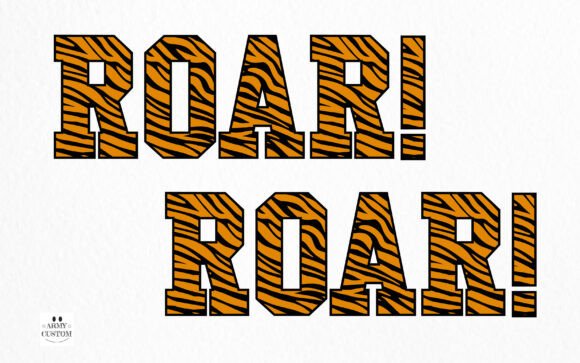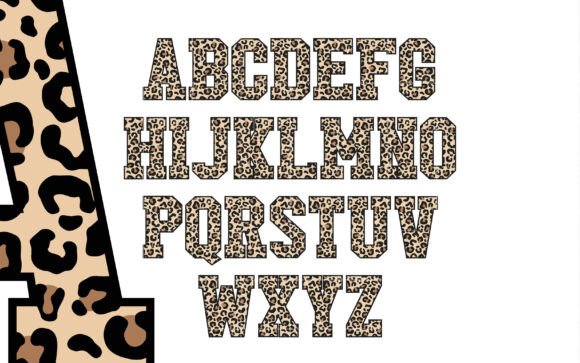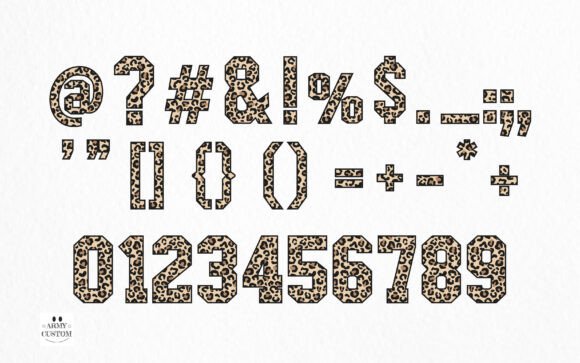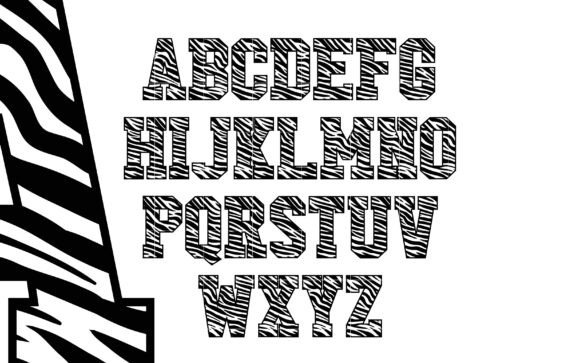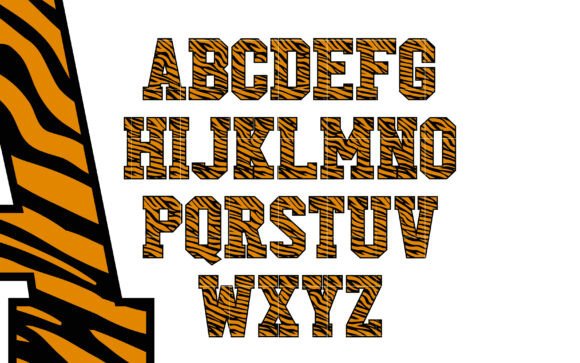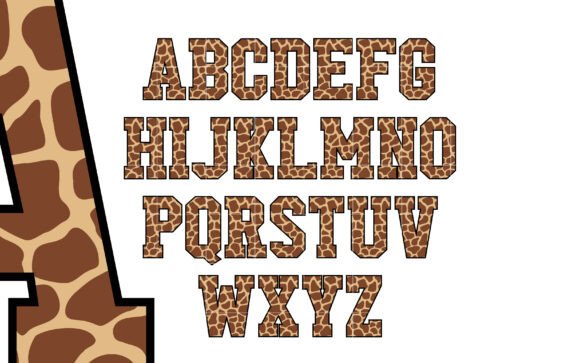
Introducing the Giraffearmy Font: Unleash Your Creativity with Safari Army Bundle
Are you a designer or crafter looking for a unique and playful font to add a touch of wild adventure to your projects? Look no further than the Giraffearmy Font, part of the exciting Safari Army Bundle. This color decorative font family is specifically designed for bold, kid-friendly jungle themes, making it perfect for a wide range of creative applications.
What Makes Giraffearmy Font So Special?
The Giraffearmy Font, along with its companion fonts Zebra, Leopard, and Tiger, offers a fresh and exciting way to add visual interest to your designs. The font features chunky all-caps with sturdy slabs, a crisp white inline, and a solid black outer stroke, creating a sticker-like presence that remains sharp even at large poster sizes.
Exploring the Safari Army Bundle
The Safari Army Bundle is a collection of four lively patterns, each one inspired by a different jungle animal:
- Zebra: High-contrast black-and-white stripes with natural, uneven flows.
- Leopard: A warm sand base dotted with irregular rosettes.
- Giraffe: Large honey-brown patches divided by dark seams.
- Tiger: Vivid orange filled with sweeping black bands.
These patterns can be mixed and matched letter- or word-by-word, allowing you to create unique and eye-catching titles, party merchandise, classroom decor, and safari branding.
The Giraffearmy Font and Safari Army Bundle offer a range of benefits for designers and crafters, including:
- Unique and playful design: The font’s chunky, sticker-like appearance is perfect for creating bold and eye-catching designs.
- Versatility: The font can be used for a wide range of applications, from party merchandise and classroom decor to safari branding and more.
Broadening Creative Horizons
For crafters and designers looking to expand their creative horizons, the Giraffearmy Font and Safari Army Bundle offer a world of possibilities. From:
- Custom party decorations: Create one-of-a-kind party hats, banners, and invitations that will make your celebration truly unforgettable.
- Classroom decor: Add a touch of wild adventure to your classroom with fun and educational posters, charts, and decorations.
- Safari branding: Create bold and eye-catching branding materials, such as logos, business cards, and brochures, that will help your business stand out from the crowd.